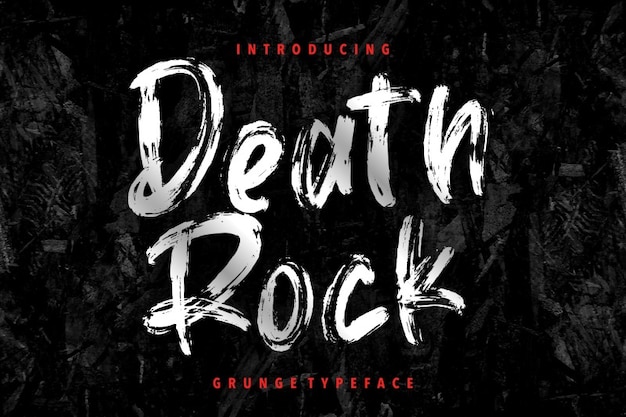
Death Rock Font
Death Rock is the font that screams raw, grunge energy. It's like a rebellious rock anthem written with a wild brush. Each handwritten letter carries the spirit of the underground music scene, perfect for anything that needs a gritty, edgy vibe. With Death Rock, your text becomes a head-banging, leather-clad masterpiece that's as rebellious as it is bold.